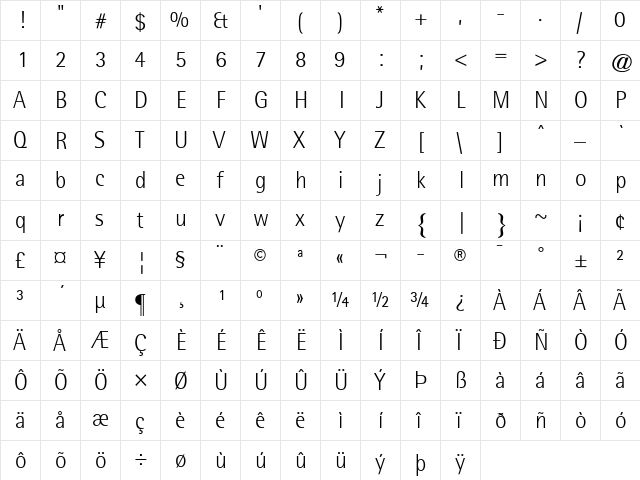
RotisSemiSans Light Regular
Design Context for RotisSemiSans Light Typeface
RotisSemiSans Light is a composed and adaptable typeface that performs quietly and consistently across a wide range of design contexts. Its slender proportions lend an understated elegance to any composition.